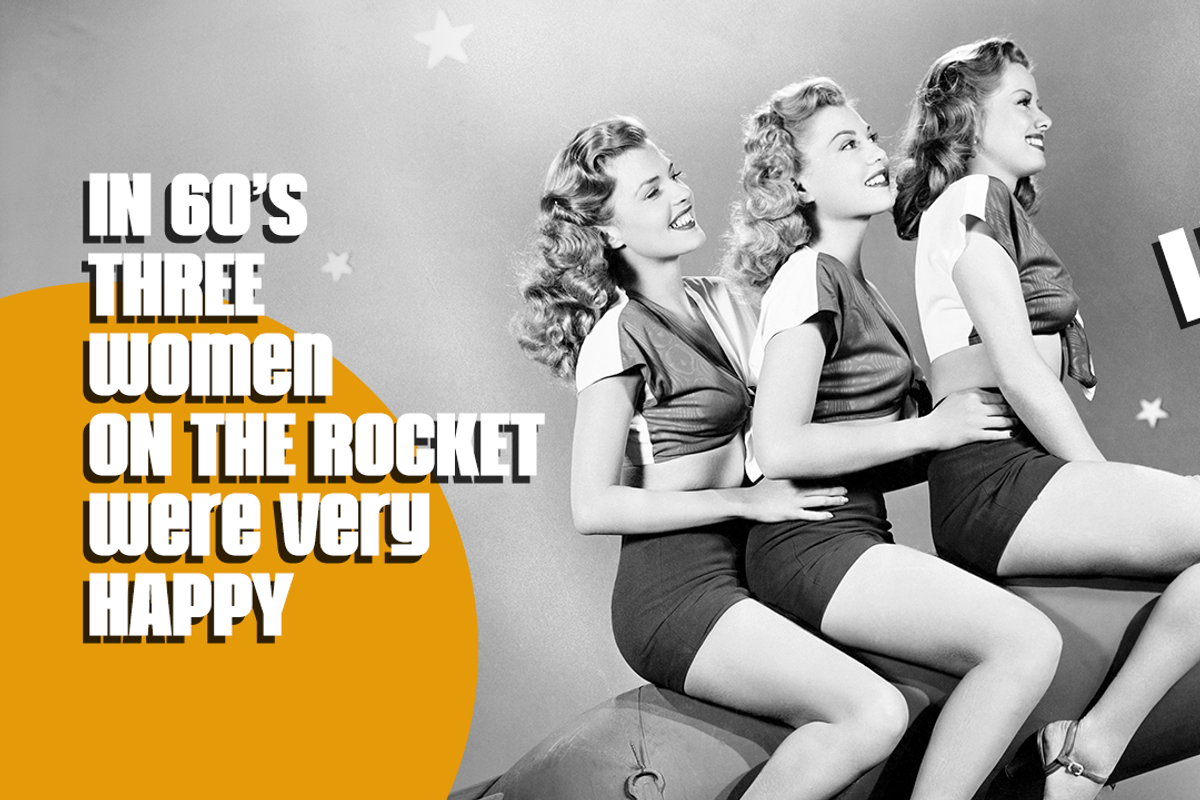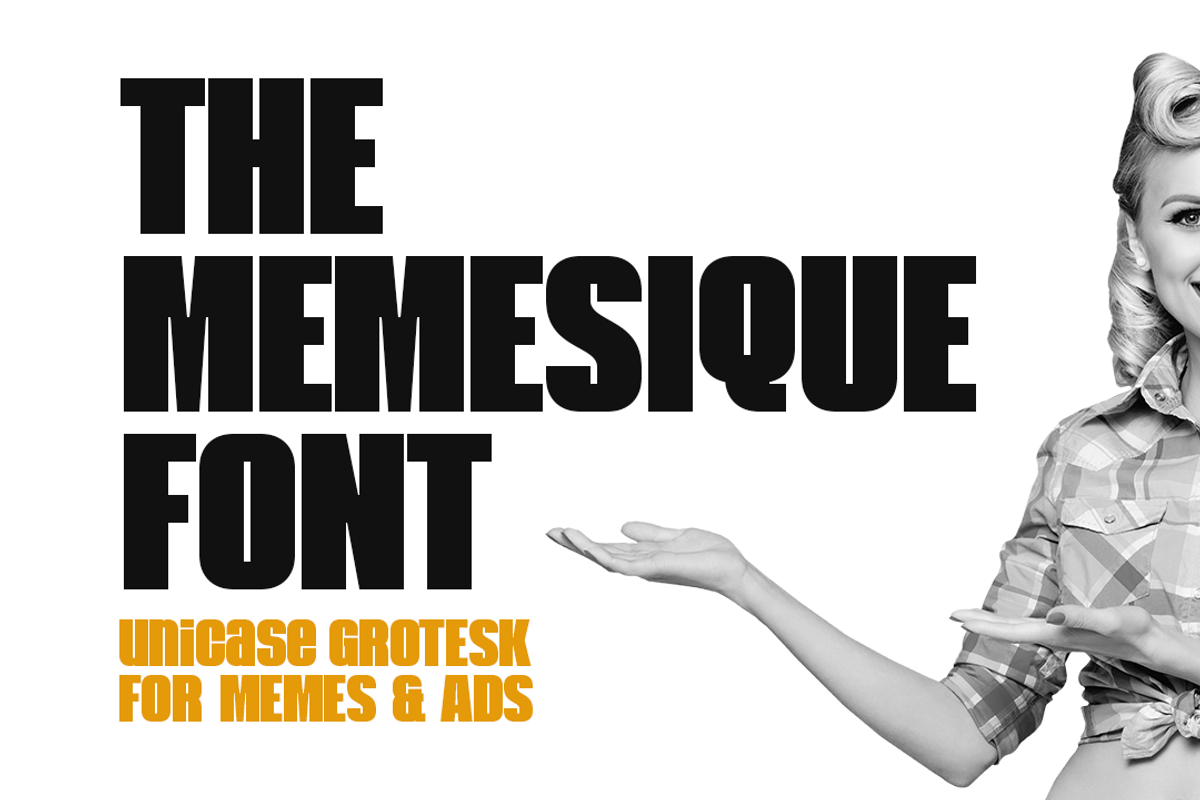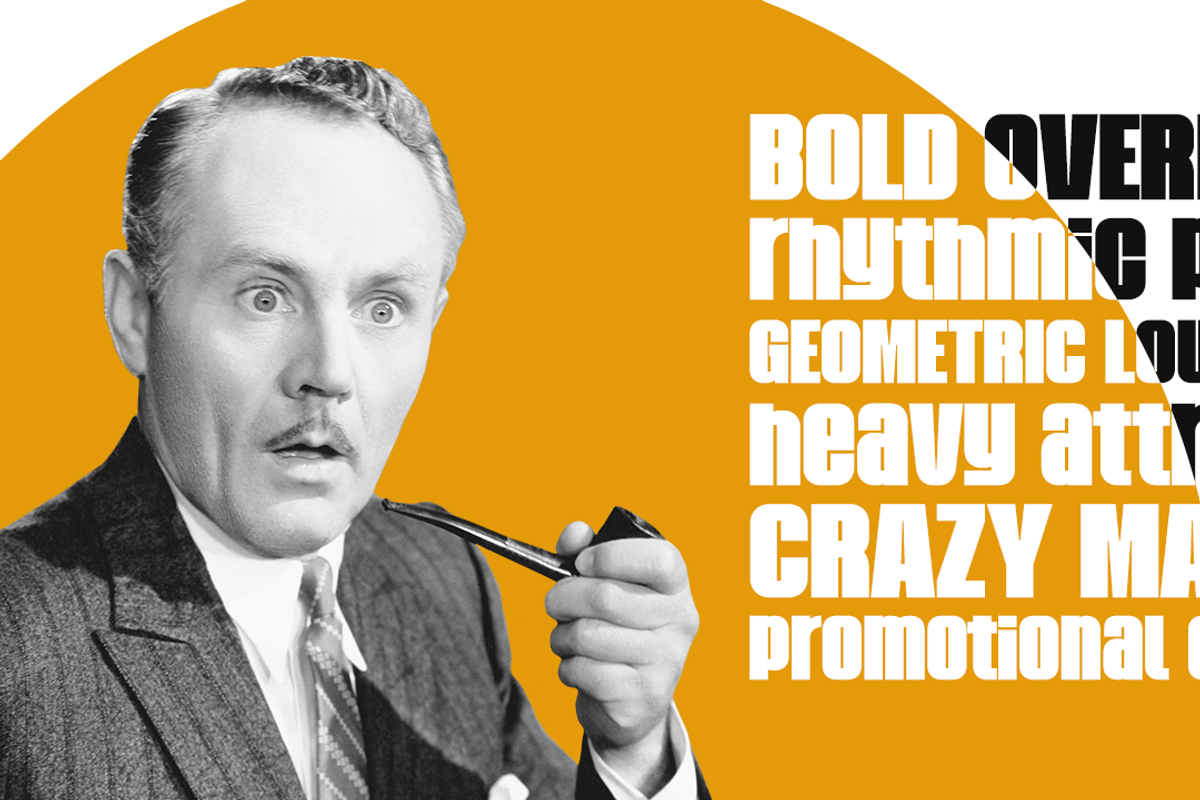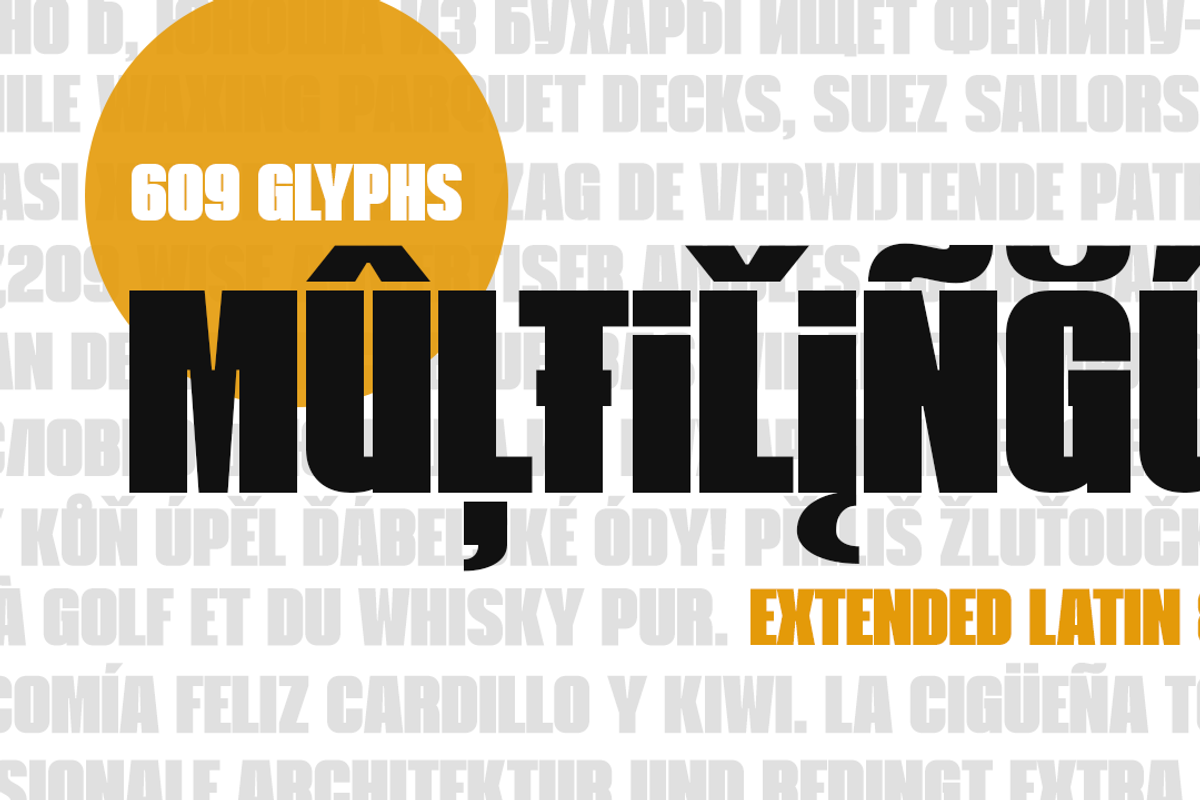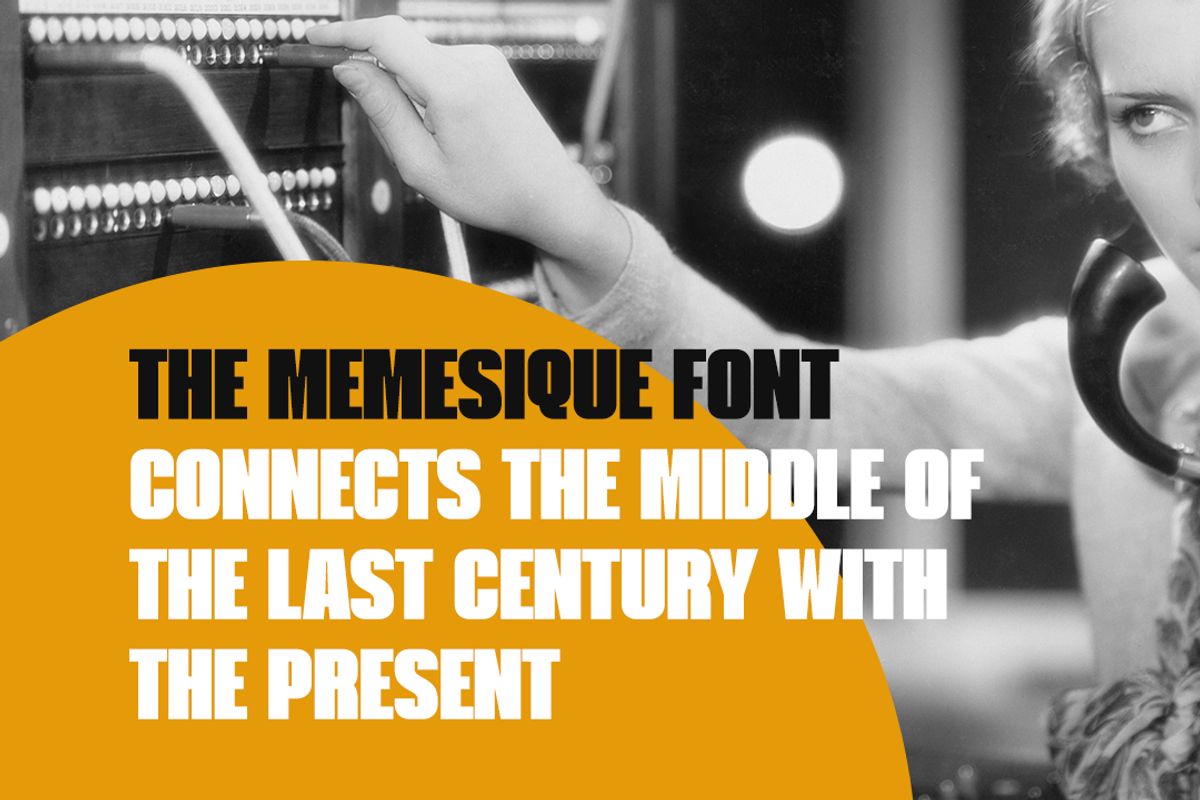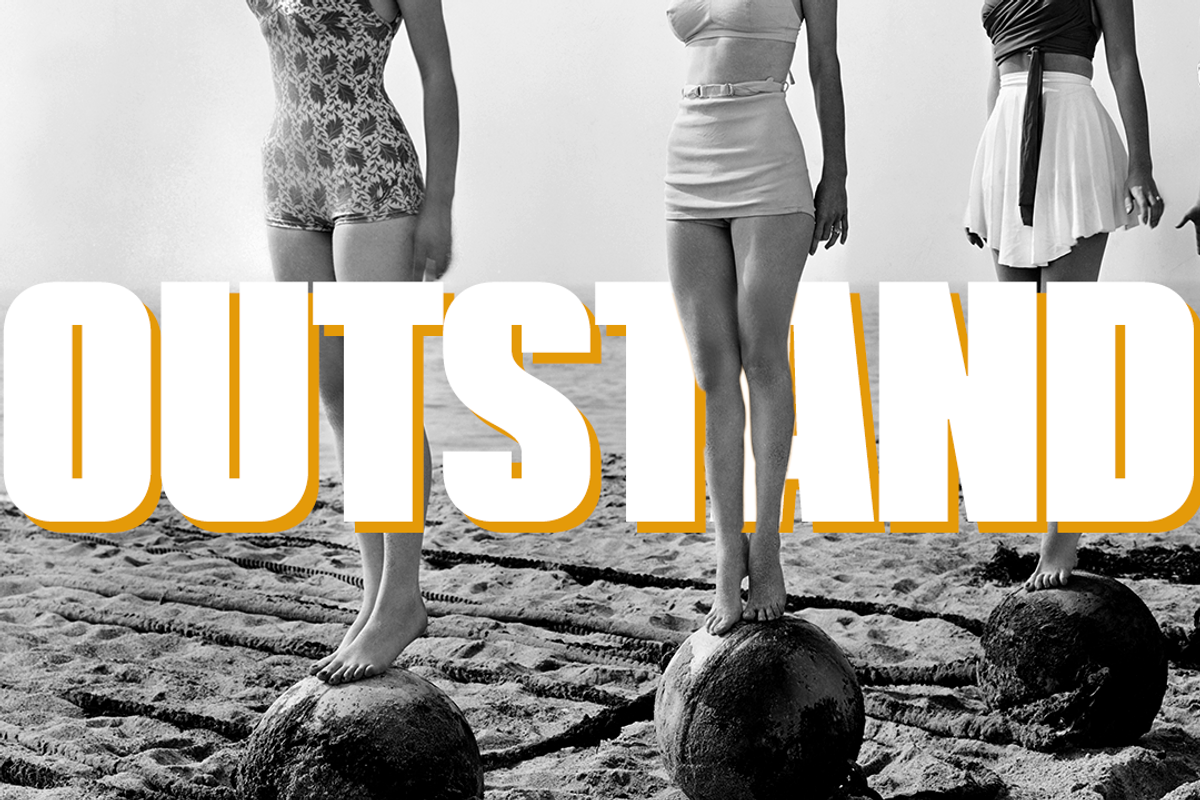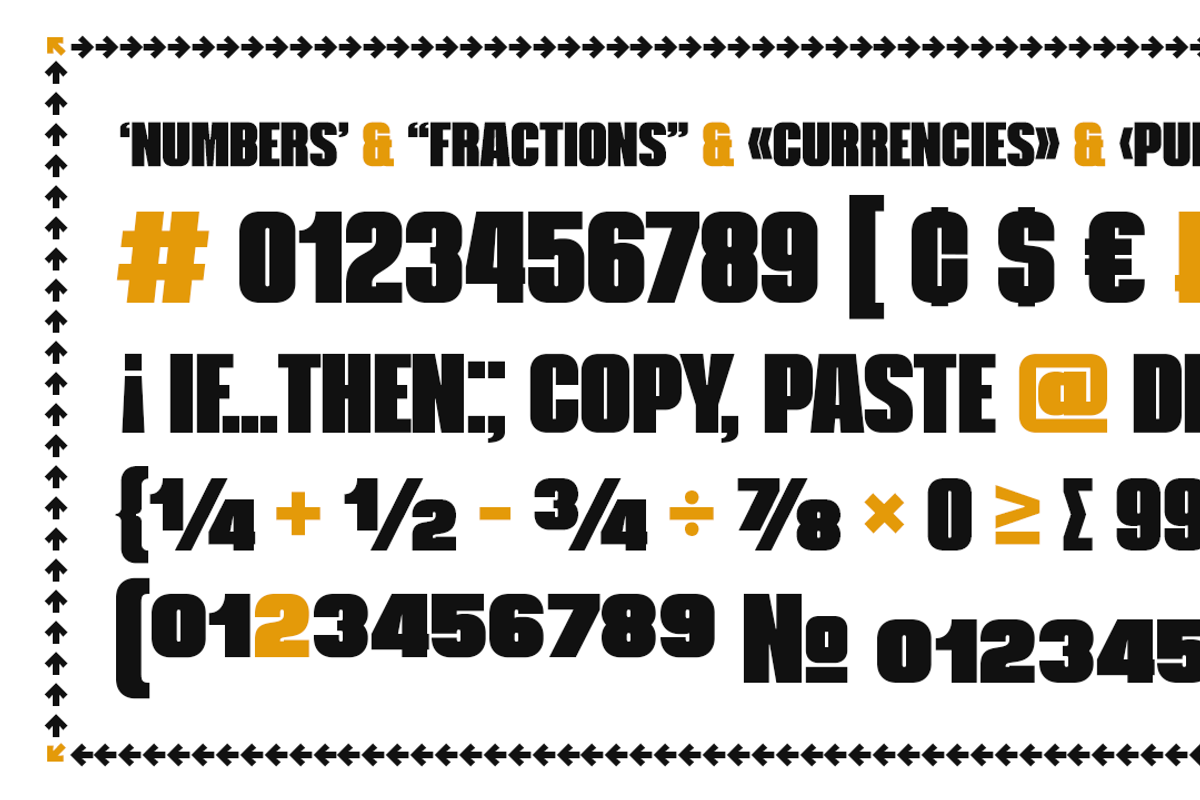
The Memesique Font
The legendary font used in current Lady Gaga's logo and in the official artworks for her 'Chromatica' album.
The Memesique Font is unicase sans-serif typeface with ultra-thick strokes, compressed letterspacing and strong regular rhythm. A font designed for memes, good for advertising, ideal for headlines.
It is a product of the analysis and the reinvention of the font Impact created by Jeffrey Lee. Each parameter of Impact was increased to the absolute. As a result, we have a modern grotesque with a large collection of glyphs and stylistically referring us to the mid-1960s.